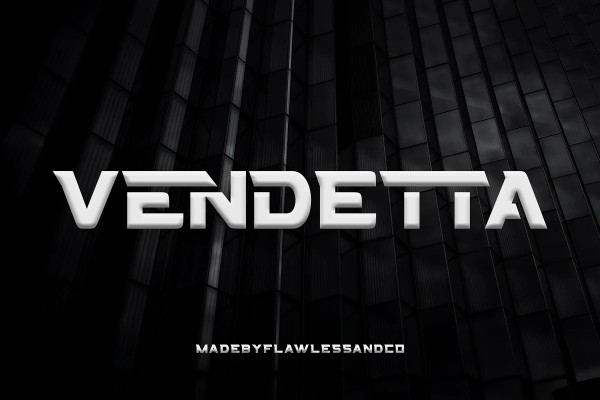
Vendetta Display Font
Vendetta Display Font, is sport display font, Modern Font with Elegant Style suitable for branding, business, logos, magazines, and others